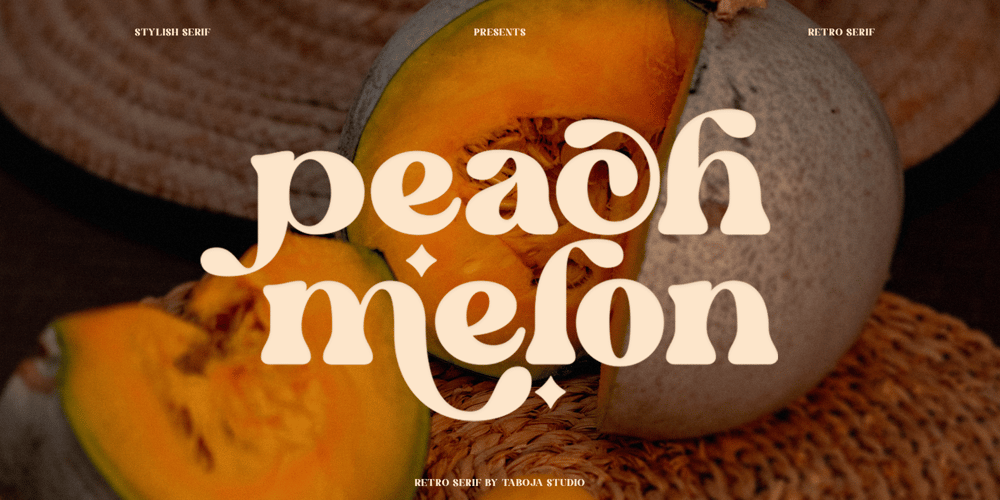
Peach Melon Versatile Serif Font Family was designed by Yusilo Oktaprima Ardani and published by Taboja Studio. Peach Melon Versatile Serif contains 1 styles and family package options. Introducing Peach Melon a versatile and stylish typeface designed to elevate all your design needs. This font seamlessly blends the timeless sophistication of serif with a touch of grooviness, creating a unique and engaging visual experience.Peach Melon font will be great for any branding project. Lot of alternates and ligatures will help you to create unique and original logo design or website header! Trendy, groovy, crazy & retro style serif font for your fancy projects.Peach Melon Features: Regular Uppercase And Lowercase Alternates And Ligatures Numerals & Punctuation Accented characters Multilingual Support Unicode PUA Encoded We highly recommend using a program that supports OpenType features and Glyphs panels such as Adobe Illustrator, Adobe Photoshop CC, Adobe Indesign, or CorelDraw, so you can see and access all Glyph variations.While using this product, if you encounter any problem or spot something we may have missed, please don’t hesitate to drop us a message. We’d love to hear your feedbacks in order to further fine-tune our products.Stay creative and have a wonderful day.